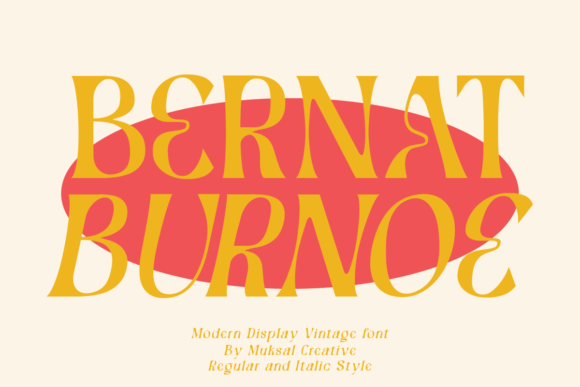
The Designer’s Delight: Bernat Burnoe Font
Have you ever been in the middle of a design project, and suddenly, you’re stuck on finding the perfect font? I recall a recent experience where I was working on a logo design for a clothing brand, and I just couldn’t seem to find a font that captured the vintage yet modern feel my client was looking for. That’s when I stumbled upon the Bernat Burnoe Font, and it was love at first sight! 💕
• ✨ Versatility: Bernat Burnoe Font is incredibly versatile and works great in both large and small sizes, making it perfect for various design projects.
• ✅ Vintage yet Modern: This font seamlessly blends vintage charm with a modern feel, giving your designs a unique edge.
• 💯 Legibility: The font is highly legible, even at smaller sizes, which is a huge plus for designers.
• 🎨 Creativity Unleashed: With its wide range of OpenType features, glyphs, and stylistic alternates, Bernat Burnoe Font offers endless creative possibilities.
While Bernat Burnoe Font is an amazing design tool, there are a few minor quirks to be aware of:
• 🤔 Kerning: Some users might find that the kerning can be a bit tricky, especially when using the font at very small sizes or in combination with other fonts.
• ⚠️ Glyph Overload: With so many glyphs and OpenType features available, it can be overwhelming for beginners to navigate and utilize them effectively.
The Designer Inspiration Behind Bernat Burnoe
Bernat Burnoe Font was inspired by the early 20th-century typographic trends but with a modern twist. The designer aimed to create a font that could bridge the gap between vintage charm and contemporary design needs. The result is a sophisticated yet approachable typeface that suits a wide range of creative projects.
Q: Is Bernat Burnoe suitable for body text?
A: While Bernat Burnoe can be used for body text, it’s primarily designed as a display font. For longer texts, consider pairing it with a more readable font for body content.
Q: Does Bernat Burnoe support multiple languages?
A: Yes, Bernat Burnoe Font supports a wide range of languages. Its extensive character set makes it versatile for international projects.